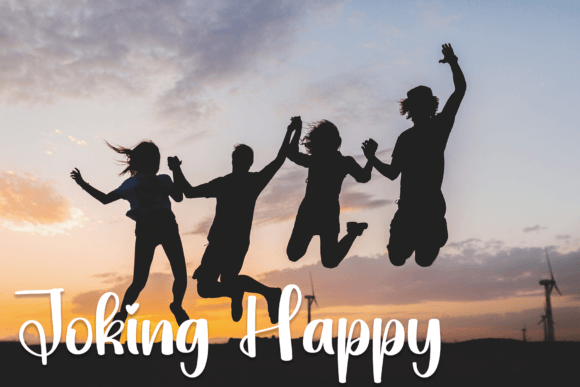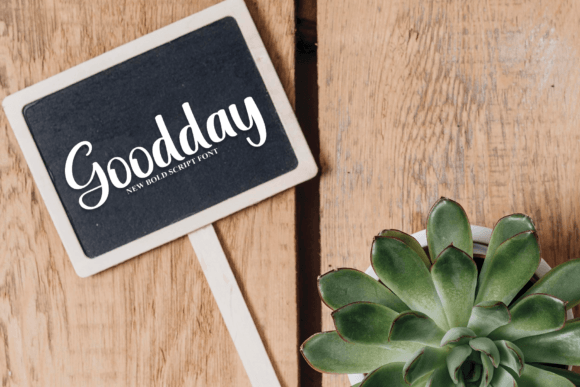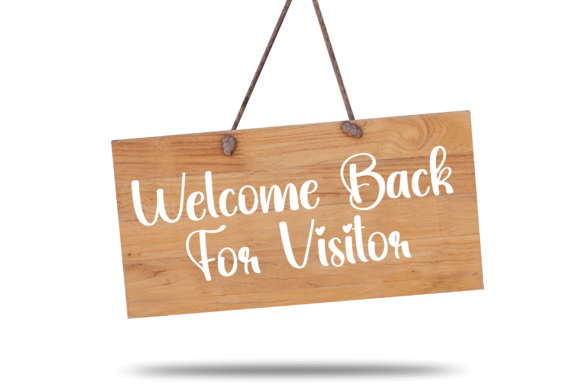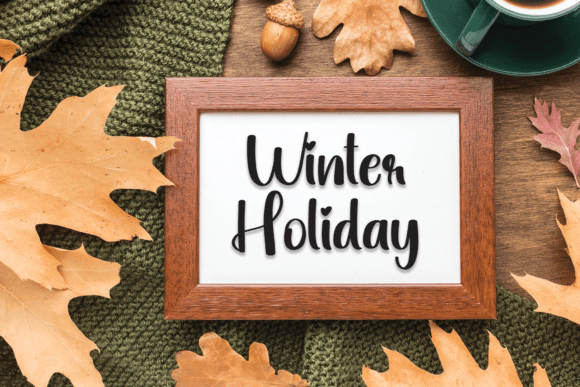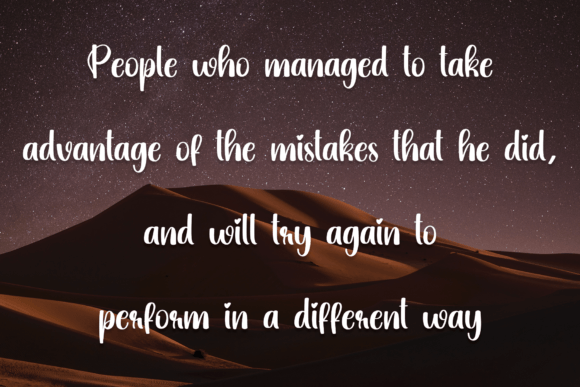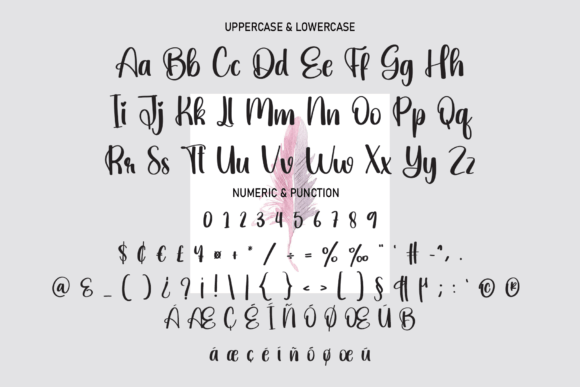
About Staunch Font
Staunch Font is a neat and fresh handwritten script that blends casual charm with a polished style. With smooth curves and natural flow, this typeface adds character and originality to both personal and professional projects. Because of its versatile design, Staunch Font is perfect for crafts, greeting cards, invitations, posters, logos, and branding.
A Neat Handwritten Typeface with Fresh Style
Handwritten fonts are appreciated for their ability to add warmth and uniqueness, and Staunch Font delivers exactly that with its fresh, modern appeal. Its balanced strokes provide readability, while its clean design ensures sophistication. Moreover, its natural flow adapts seamlessly to both casual and professional layouts. As a result, this typeface is a dependable option for creatives who want clarity and creativity.
For stationery and event projects, Staunch Font is an excellent choice. For example, it can transform a wedding invitation into an elegant keepsake. In addition, it works beautifully for thank-you notes, seasonal greetings, and birthday cards. Because of its stylish flow, every project feels heartfelt, polished, and memorable.
A Script Typeface for Logos and Branding
Brands and professionals searching for a modern handwritten typeface can rely on Staunch Font. It adds originality and charm to logos, labels, and packaging. Furthermore, on social media, it helps posts, stories, and promotional graphics stand out with a friendly, creative vibe. When paired with minimalist sans serif fonts, Staunch Font achieves balance between professionalism and personality.
Another advantage of Staunch Font is its adaptability across different mediums. In print, it shines on brochures, posters, magazines, and merchandise. Digitally, it elevates websites, blogs, and presentations with authenticity. Since it maintains clarity at both small and large sizes, this handwritten script is suitable for a wide variety of applications.